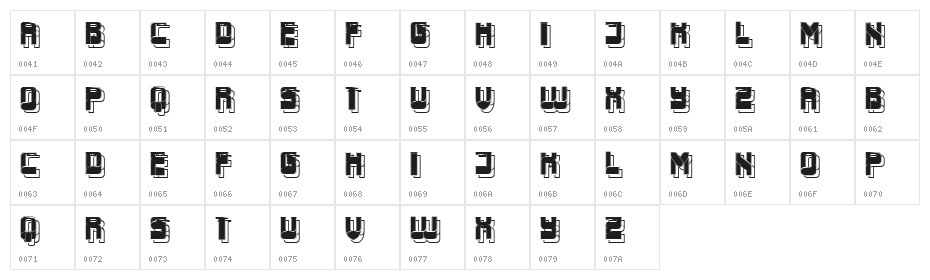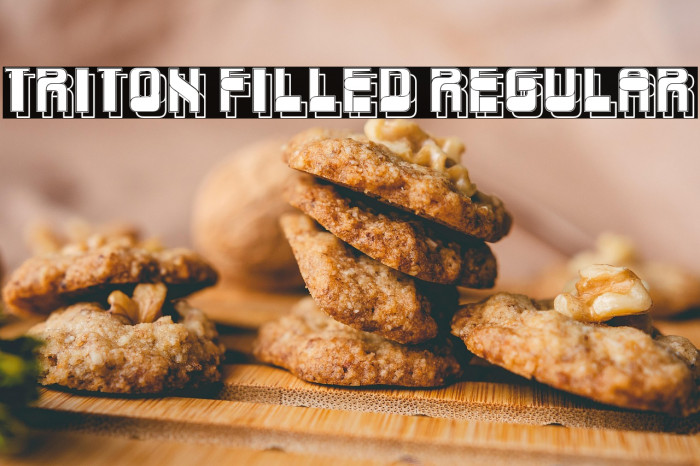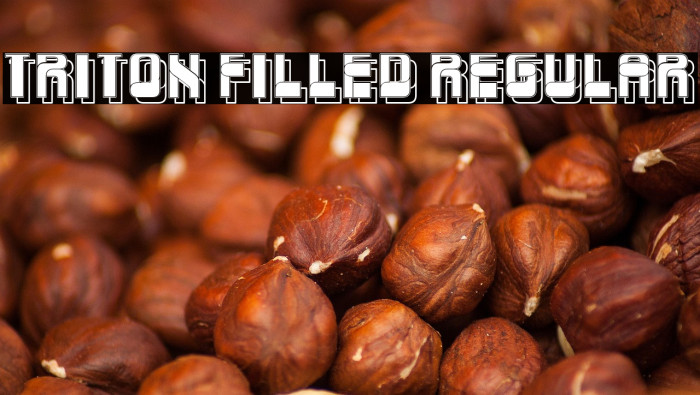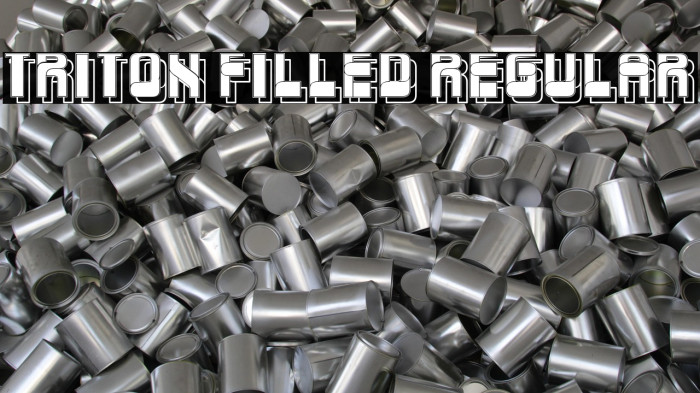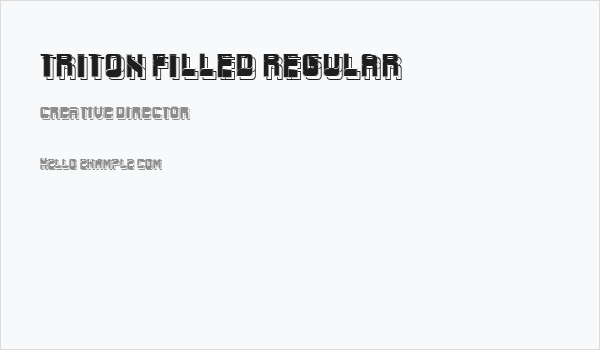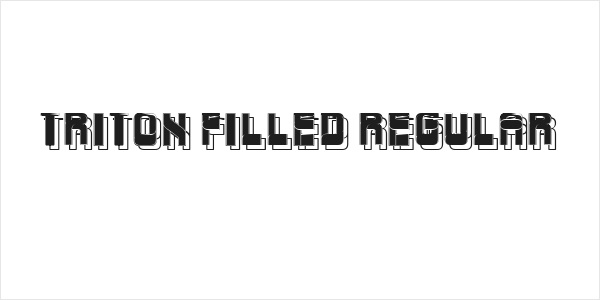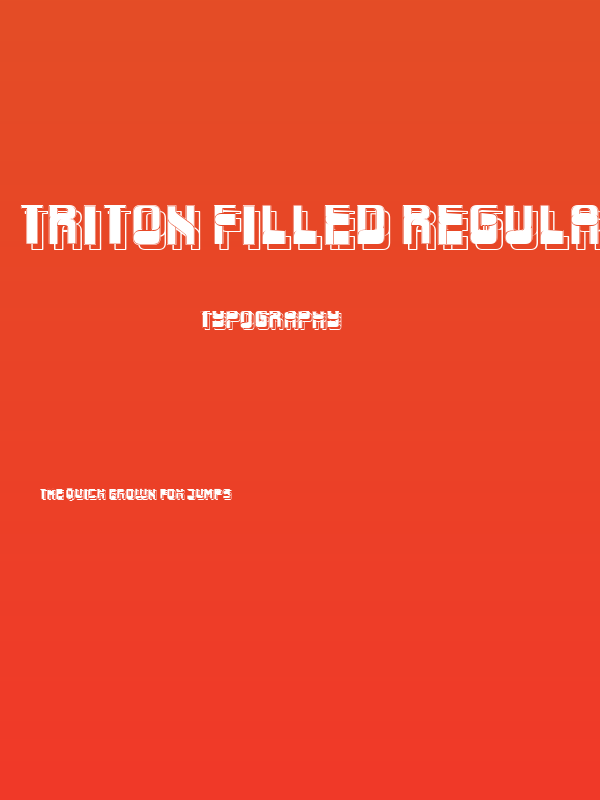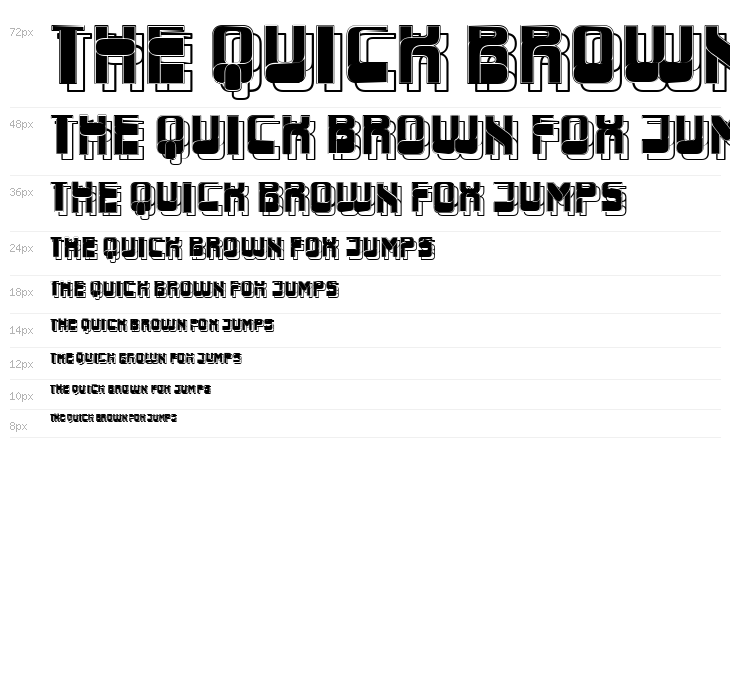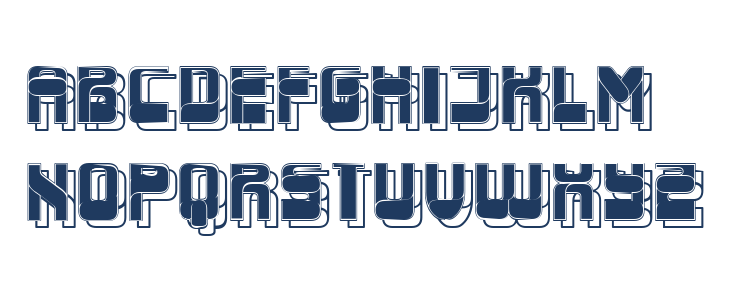
Triton Filled Regular Font
Triton Filled Regular Description
This font features a bold, futuristic design with a three-dimensional effect created by its filled and outlined style. The characters are blocky and geometric, with sharp angles and a consistent thickness throughout. The design gives a sense of depth and movement, making it stand out prominently. It is highly stylized, with a modern and edgy appearance that is suitable for attention-grabbing headlines or logos. The uppercase letters are uniform in height, and the spacing between characters is tight, enhancing its compact and impactful look.
| Proposed Projects | Ideal for sci-fi themed posters, video game titles, technology branding, and modern advertising campaigns. |